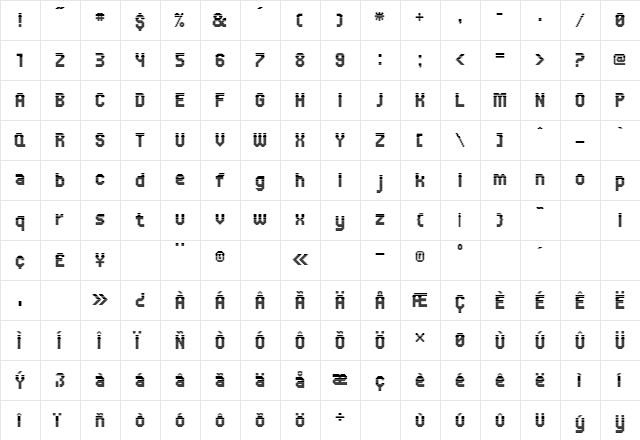
UNDAHorizontal Regular
Design Context for UNDAHorizontal Typeface
UNDAHorizontal takes a measured approach to typography — its balanced proportions and neutral character make it a reliable workhorse for both digital and print work.